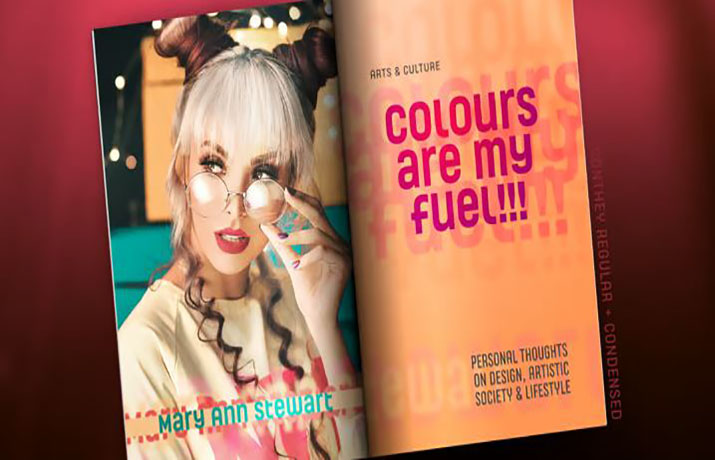
Conthey Font is a modern and versatile unicase sans serif typeface that is specifically designed for headlines and display use. Created with a sharp and friendly character, this font family adds a fresh, positive vibe to any design project.
This display typeface was designed by Roch Modrzejewski and published by ROHH. Conthey contains 128 styles.
The font family offers a range of customization options, including weight variants from hairline to extra bold, width variants from narrow to normal, and style variants that allow designers to change the mood of the font.
With its normal unicase style, Conthey already has a cheerful character, but designers can choose to make it even more playful with the neo-deco proportioned unicase style.
This versatility allows Conthey to be used in a wide range of design projects, including branding, advertising, social media posters, banners, and editorial design.
Font Name: | Conthey Font Family |
Style: | Modern, Sans Serif, Display |
Font Designer: | Roch Modrzejewski |